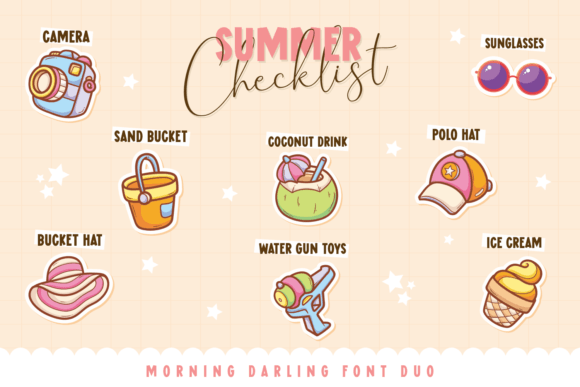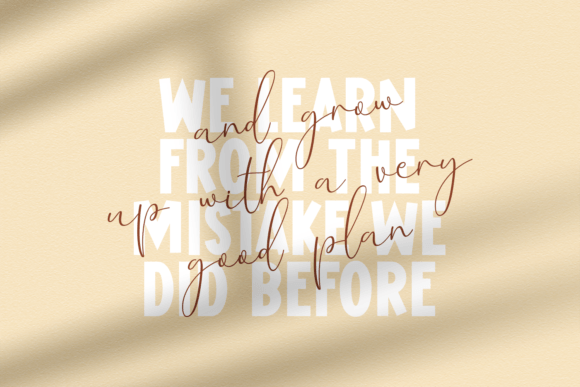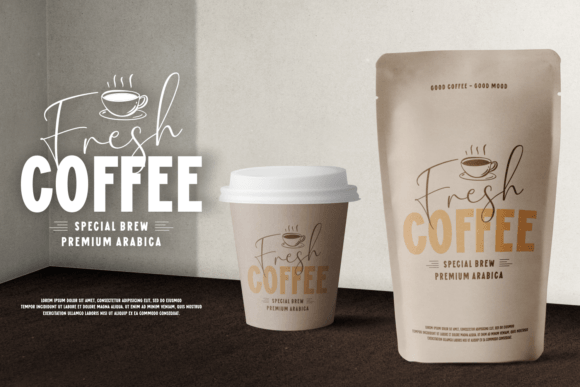
Morning Darling Font
Morning Darling is a delightful and modern font duo that combines a playful script font with a sleek and elegant sans-serif font. The script font exudes a charming and whimsical feel, while the sans-serif font adds a touch of sophistication and modernity.The Morning Darling font duo is a versatile and stylish choice for a wide range of design projects. Its cute and modern aesthetic makes it perfect for creating designs that are both fun and professional. Whether you’re designing a logo, a website, or a marketing campaign, the Morning Darling font duo is sure to add a touch of charm and elegance to your work.